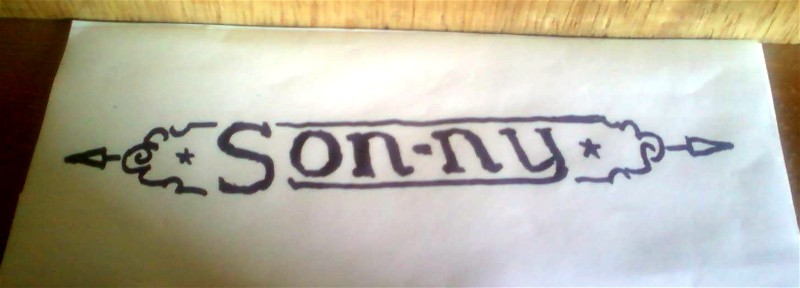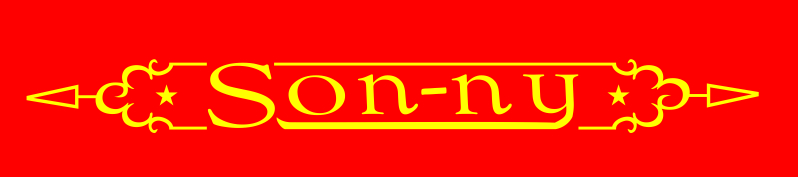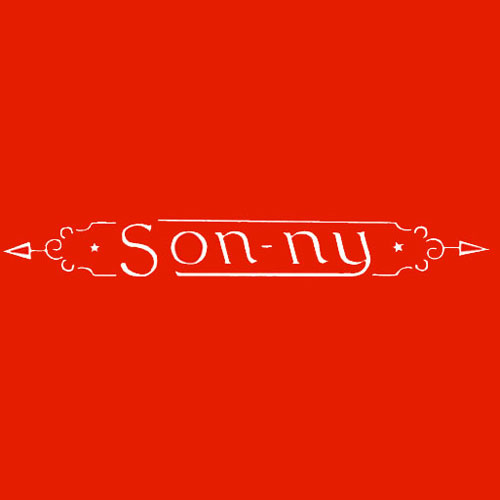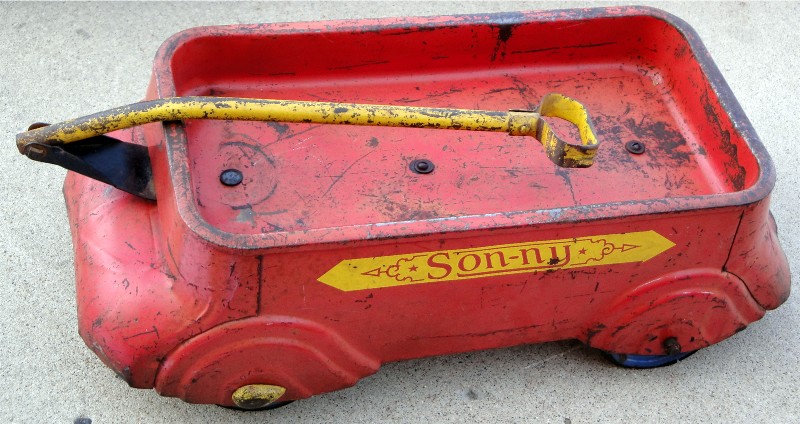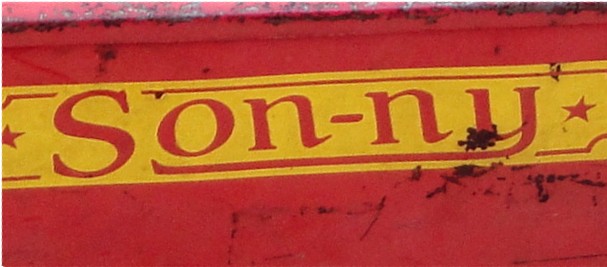
Antique kid's wagon font
Hi, I have to rebuild this.
Any suggestions on a font to base this on? I can always trace it but I want it to be perfect.
It resembles Souvenir a little, but honestly, it looks like something hand cut in ruby and then screen printed for mass-production.
That's what I'm thinking too. The pic is from the www not the actual wagon, which someone sanded and repainted.
i would take a sheet of tracing paper, tape it on one side take the time to trace it exactly. if i was doing the "refurb on it, i would be repainting the yellow any way. it need a total sandblasting and a good fill 2 part epoxy primer. this is body shop work. also before i had it sandblasted i would take it to an auto paint store...........and match the red as close as possible with a auto paint. and a lot of detail pictures of BEFORE. this is a refurb i did.
The S is definitely a GOUDY style. Goudy Catalog, Old Style and Old Style Italic will pretty much give you everything you need. The rest is up to you with tweaks and such.
This is what the lady sent me, it was all she had to go by.
Not sure if it's a tracing or what.
The wagon has been stripped.
She wants a black decal.
(and this after me chiding someone for vynulling up an old pickup)
I have a ton of period fonts, and will also give the Goudy family a whirl.
Wow......she really "F"ed up that project didn't she. Screwed the pooch with it's value and made your job a real cluster "F". I'd charge her up the ...... for what she wants. Damn! Some people are only alive by sheer luck. If you can't charge her accordingly.....just throw a quickie together with Goudy.....heavily molested of course and she will never know the diff. Otherwise make her bring it in and you can slap it with paint. Again, charge her for it good!!!
ask the lady to look all over the thing and see if there is a stamping with the comapny name and or date. I HATE WHEN DUMB PEOPLE do dumb schit, like starting a project when they ARE DUMB............... then expect us to fix it for cheap!!!!!
^refer to my post #3, I said the pix were from the www. It's all I could find and it was better than my "tracing".
I have the border all rebuilt, now to do the name.
I don't think the lady who I'm dealing with was the one who stripped the thing without the trace or whatever, not to defend her, but she seems OK.
It resembles Souvenir a little, but honestly, it looks like something hand cut in ruby and then screen printed for mass-production.
Hand cut. The two 'n's are slightly different. Compare the upper right where the curve straightens to form the leg of the 'n'. The left 'n' is a smooth transition and the right 'n' would appear to have the curve stop and then turn straight leaving just a hint of a spur.
As for what typeface, shrug. Most likely someone set cold type and ran a proof on a platen press to use as a pattern or just winged it.
That is a 1937 (aprox) era wagon. Back then most everything was drawn out on paper with pencil to create a pattern and then a screen stencil was cut from that. Quite often the stencil itself was paper held onto the screen by nothing more than the ink itself.